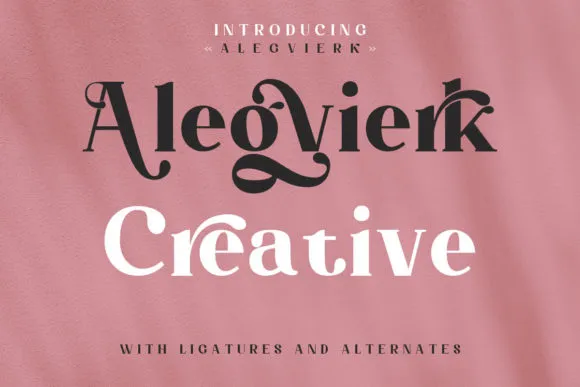
Introducing the Alegvierk Font, a delightful digital download that brings a splash of creativity to your designs! 🎉 This charming typeface is perfect for a variety of projects, from branding and logo design to invitations and digital artwork. With its unique blend of elegance and readability, Alegvierk ensures your work stands out while maintaining a professional appearance.
The Alegvierk Font is not just any typeface; it’s a modern and versatile choice that fits seamlessly into any design project. Whether you’re crafting a stunning logo or designing eye-catching invitations, this font has got you covered. Plus, with instant access, you can start creating right away! 🚀
- Modern and Clean Style: Perfect for various design needs, making it suitable for both digital and print projects.
- Comprehensive Character Set: Includes uppercase, lowercase letters, numbers, and punctuation for all your typing needs.
- Multilingual Support: This font embraces diversity with support for multilingual characters, allowing you to create designs for a global audience.
- Perfect for All Projects: Whether it’s a professional branding project or a fun digital artwork, Alegvierk fits the bill with style!
This font is ideal for graphic designers, branding specialists, and anyone in need of a stylish typeface for their projects. Whether you’re working on marketing materials, social media graphics, or personal projects, Alegvierk will add that special touch! ✨